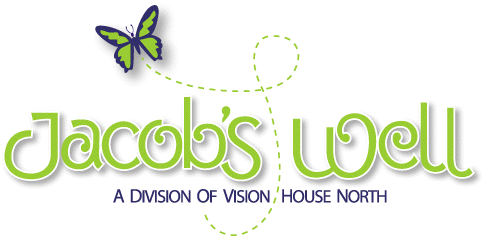
This is a logo for the daycare center for Jacob's Well. A non profit shelter for abused women. I was pretty happy with how it turned out. The butterfly's trail makes a subconscious letter J.